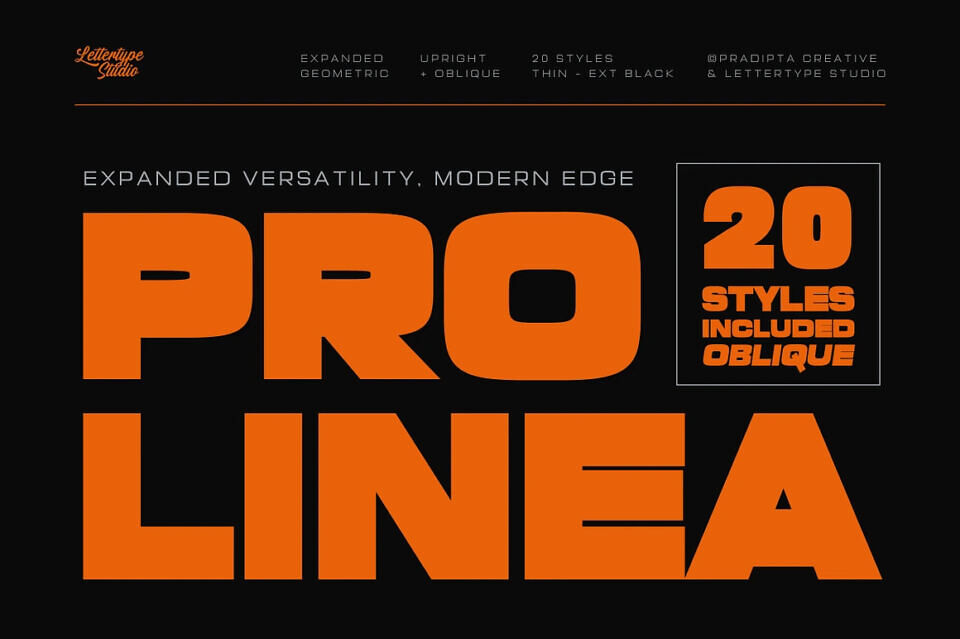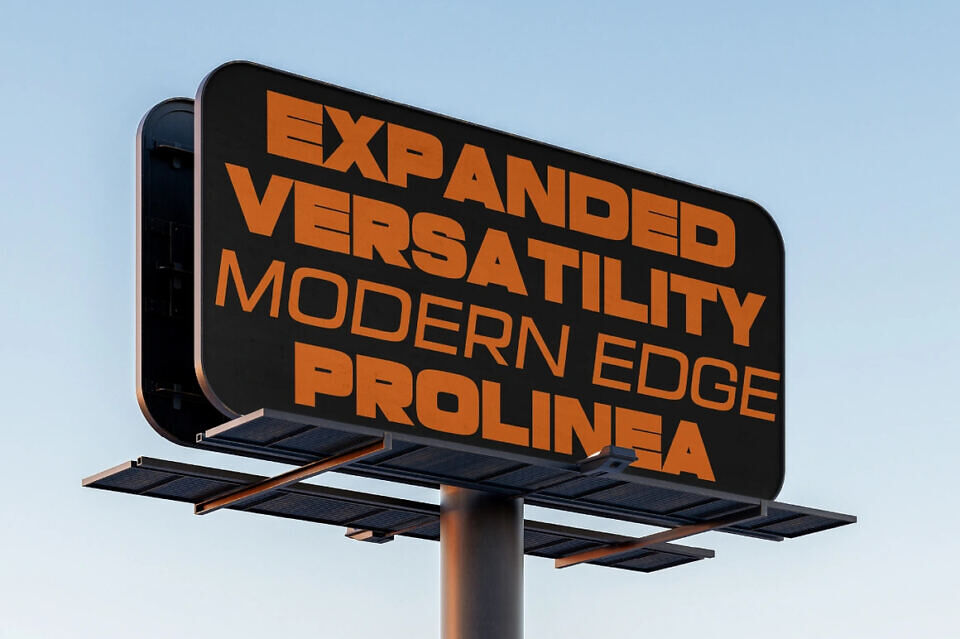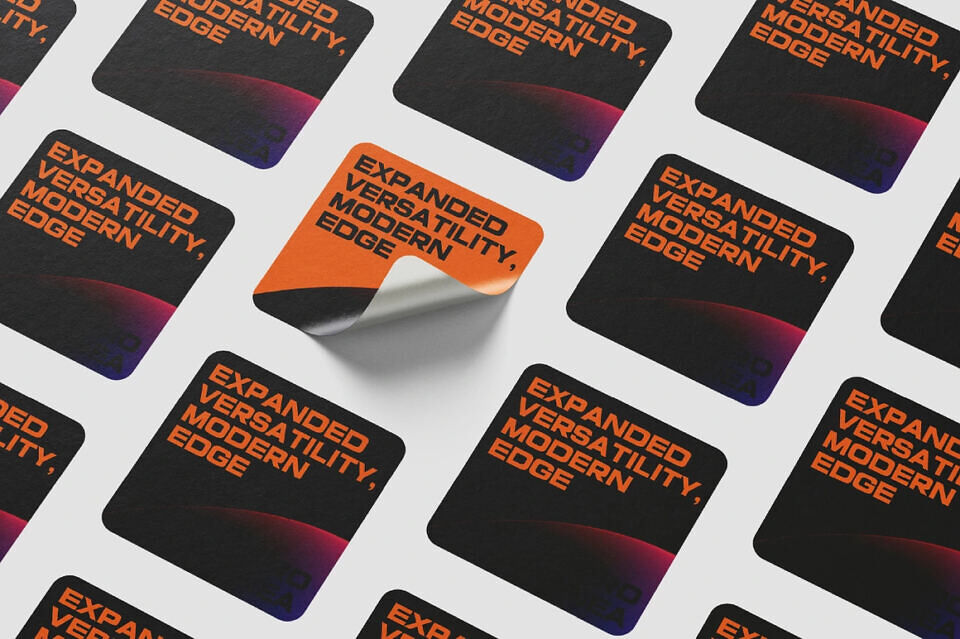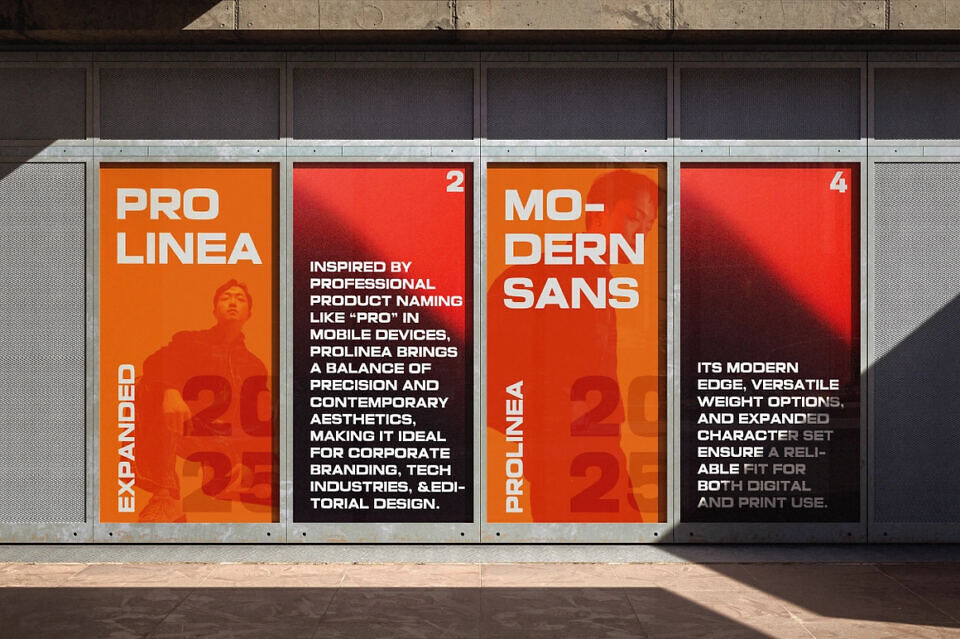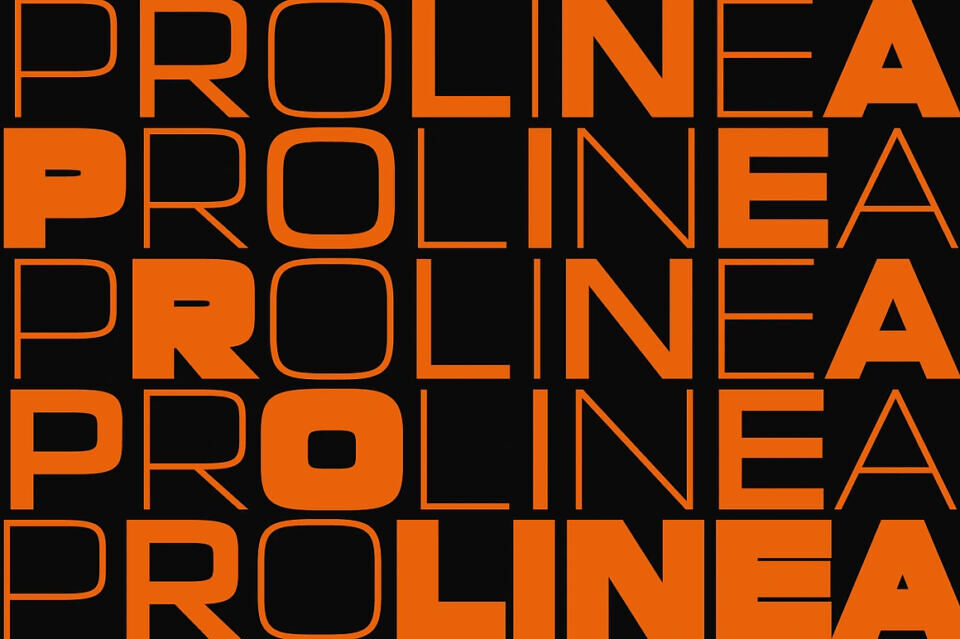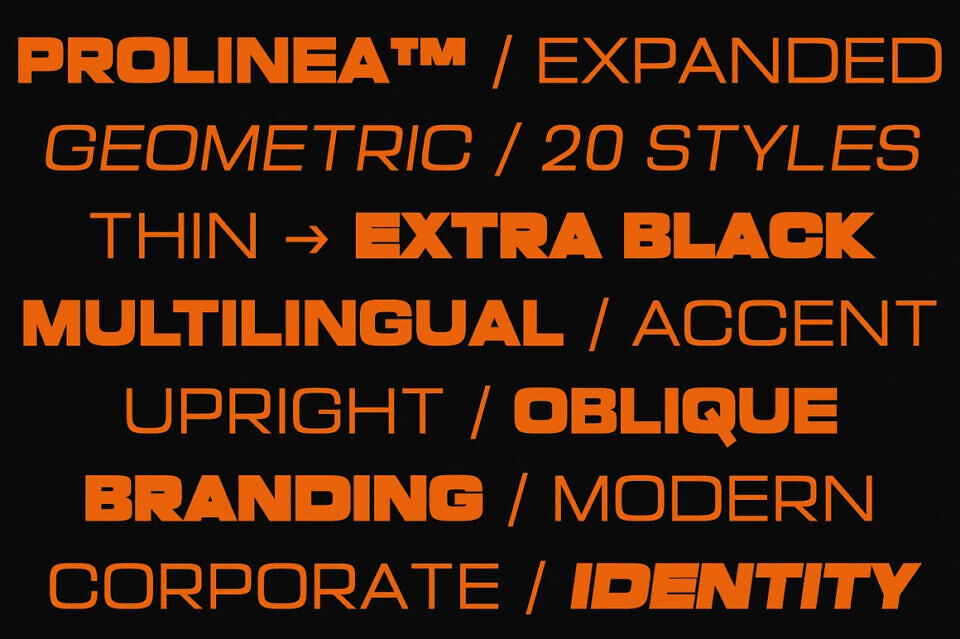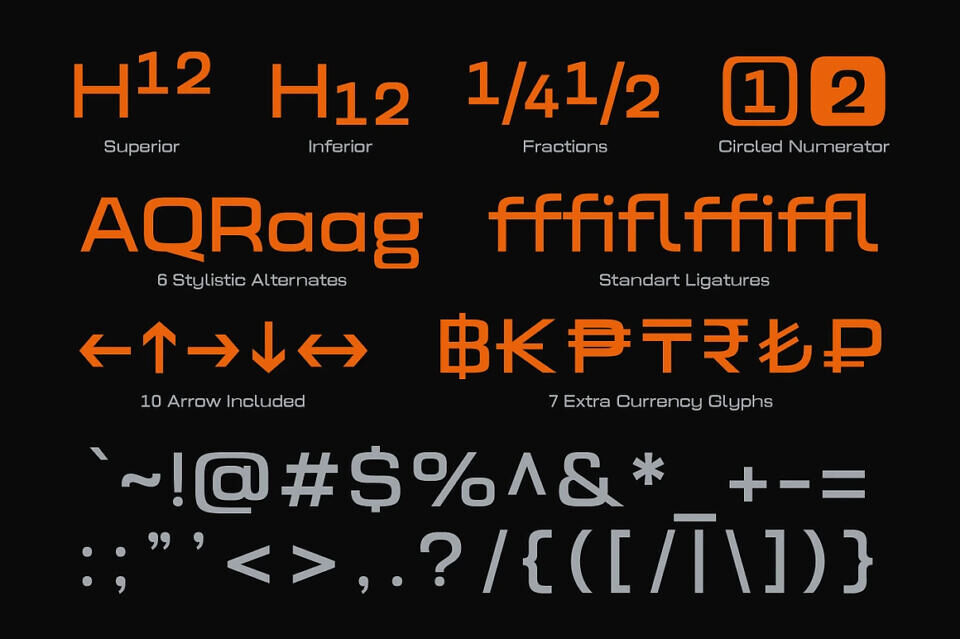
Prolinea is a contemporary sans serif typeface distinguished by sleek proportions, geometric clarity, and refined detailing. Inspired by professional product naming conventions, it blends precision with modern aesthetics, making it a strong choice for corporate branding, technology, and editorial design.
Offering versatile weights, multilingual support, and smooth readability, Prolinea performs seamlessly across print and digital platforms. Enhanced with thoughtful alternates and ligatures, it empowers designers to craft distinctive logotypes and impactful headlines. Prolinea delivers clarity, elegance, and timeless style, ensuring professional results in every creative application.